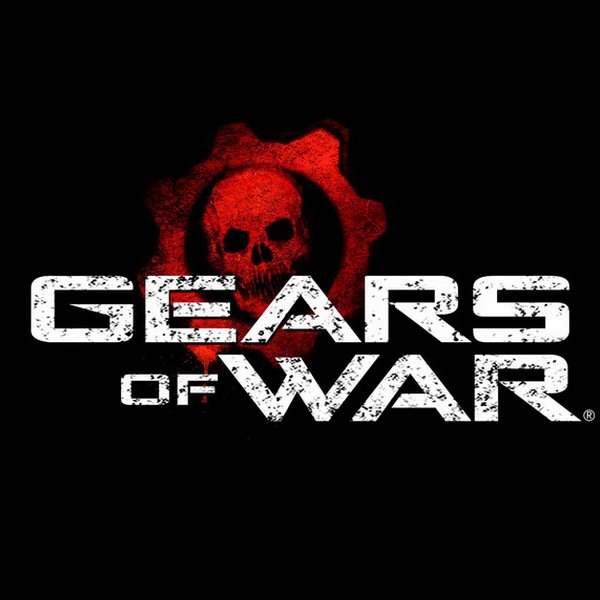
Gears of War Font
Fonts in UseGears of War is a third-person shooter video game series developed by Epic Games (now The Coalition) and published by Xbox Game Studios. The games feature a dystopian world where humanity battles against the Locust Horde, a race of subterranean creatures threatening their survival.
The official Gears of War logo showcases a red skull within a red cog, accompanied by the logotype in a font resembling CGF Locust Resistance. The font offers clean and grungy styles, with uppercase and lowercase letters producing slight variations. You can download the font for free from the Fonts Used Section.